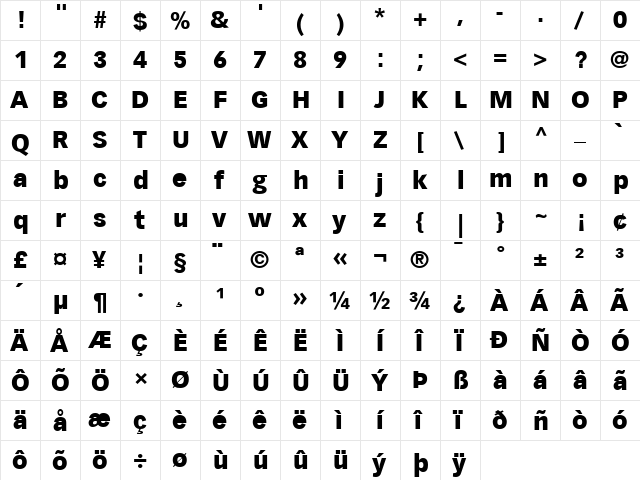
Vectora LH Bold
| Foundry | Adobe Systems Incorporated |
Design Context for Vectora LH Typeface
Vectora LH takes a measured approach to typography — its balanced proportions and neutral character make it a reliable workhorse for both digital and print work. The heavy weight commands attention and anchors typographic hierarchies.